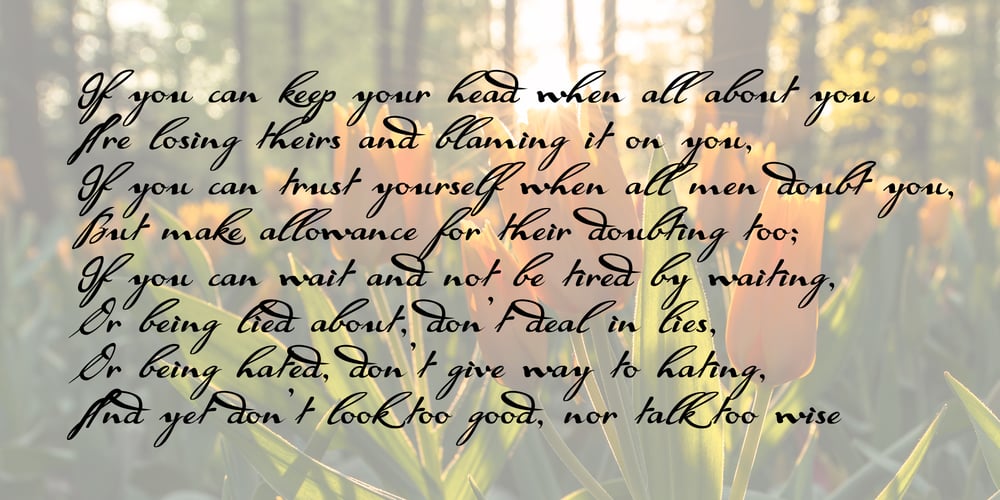
Deveren
Deveren font
Deveren Font Family was designed by Corien Bennink and published by Corien’s Handwritingfonts. Deveren contains 1 styles and family package options. Deveren is a font based on goosefeather writings from the late 1600’s.